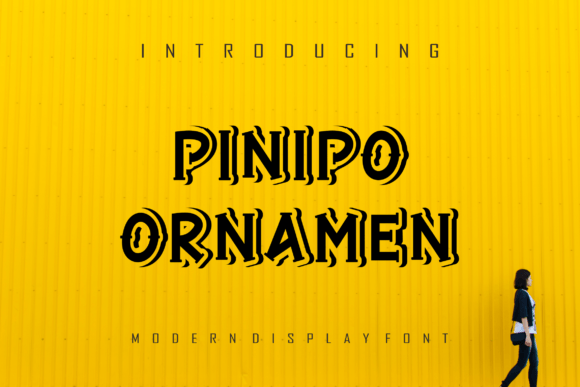
**Behold Pinipo Ornamen, the Font that Unleashes Modern Brilliance in Your Digital Creations**
Introducing Pinipo Ornamen, the display font that empowers you to infuse your digital designs, presentations, and greeting cards with a touch of modern sophistication. This captivating font, crafted with precision by renowned designer kalingga.albert, is the key to unlocking your creative potential and making a lasting impression.
Whether you're a seasoned designer or just starting your creative journey, Pinipo Ornamen is the perfect companion for a wide range of projects. Its versatility shines through in every application, from eye-catching logos to stunning posters and everything in between.
Imagine your words dancing gracefully across the screen, each letter adorned with a touch of modern flair that commands attention. Pinipo Ornamen's unique character adds a layer of depth and personality to your creations, making them stand out from the crowd.
This font is not just a tool; it's an extension of your creativity. With Pinipo Ornamen at your fingertips, you'll discover endless possibilities to express yourself and captivate your audience.
Unlock the power of modern design today with Pinipo Ornamen. Let your imagination soar and create digital masterpieces that leave an unforgettable mark.
**Why Pinipo Ornamen is the Perfect Choice for Your Creative Projects:**
* Its versatile nature makes it suitable for a wide range of applications.
* The unique character adds a touch of modern flair to your designs.
* The stunning visual appeal helps you make a lasting impression.
* The user-friendly design makes it easy to incorporate into your projects.